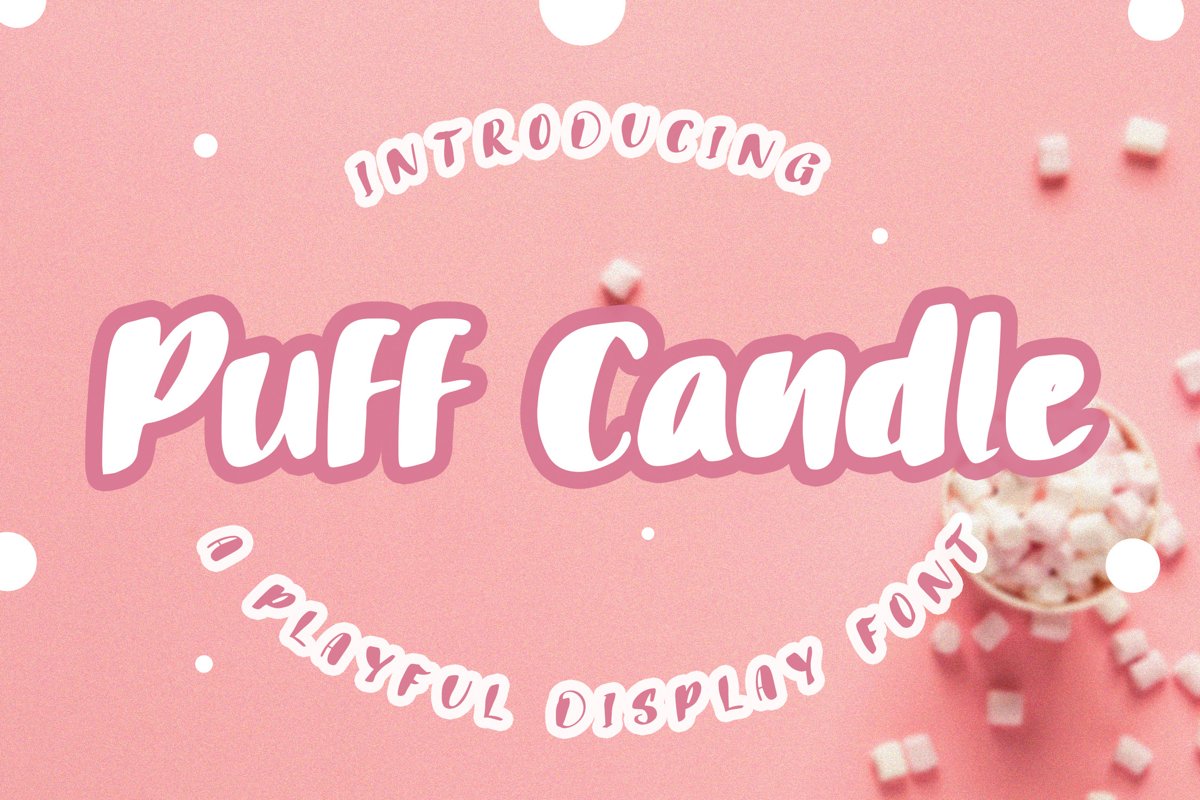
Puff Candle Playful Font
PuffCandle
Puff Candle is a playful display font with fun and childish style. This font is designed with a very fresh and fun theme. Can be applied to support the graphic appearance of the product to be more attractive and unique. This font is suitable for making previews and covers, Child logo designs, shirt designs and other graphic needs. Made with hand scratches directly and then processed into font processing software.
Puff Candle font with uppercase characters A-Z, lowercase characters a-z, punctuation and Numerical characters